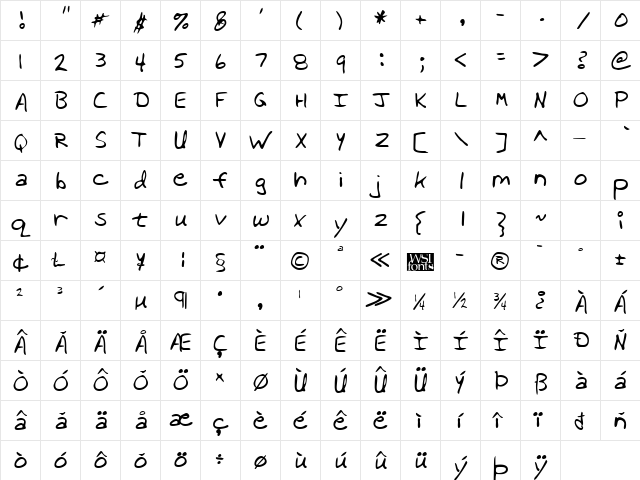
JanicesHand Regular
Design Context for JanicesHand Typeface
JanicesHand flows with the natural rhythm of handwritten lettering, making it ideal for designs that call for warmth and personal expression.
Font Pairing: Combine JanicesHand with a simple geometric sans for maximum contrast — the tension between flowing curves and clean structure is a classic typographic pairing.
Pro Tip: Use JanicesHand for short runs of text — names, titles, or taglines. Extended body copy in script faces tires the eye quickly.